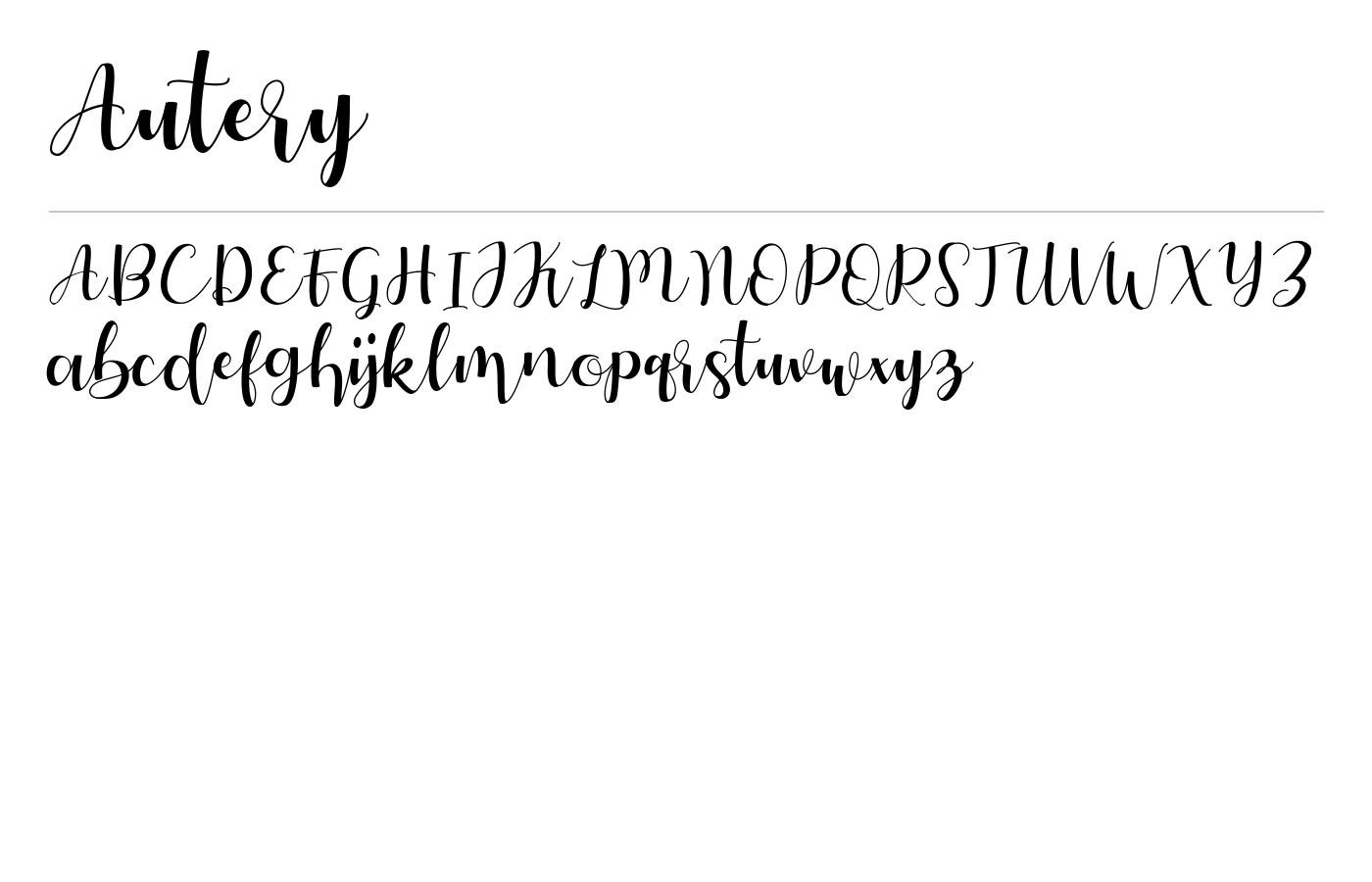
Autery is an elegant script font with flowing, delicate strokes that create a hand-lettered, artistic feel. Its smooth, cursive forms with varied thickness give it a graceful and personal touch, making it perfect for invitations, branding, and projects that need a sophisticated yet approachable style. This font works best in decorative and headline applications where its charm and fluidity can shine.
Autery Font
About Autery Font
| Font family | Autery Font |